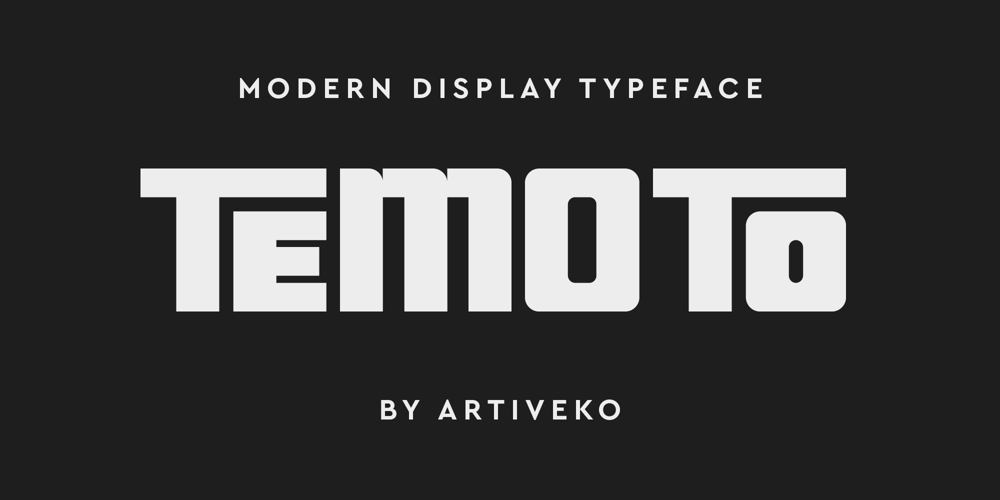
Temoto Font Family was designed by Iwan Alwan and published by Artiveko. Temoto contains 2 styles and family package options. Temoto, a formidable creation by Iwan Alwan.This strong sans-serif font embodies robustness and clarity, perfectly suited for industries like construction, security, business, consulting, and real estate. With its bold strokes and clean lines, Temoto exudes professionalism and confidence, making it an ideal choice for conveying strength and reliability in various design projects.Whether it’s building brand identities, crafting sleek signage, or designing impactful marketing materials, Temoto stands tall as a versatile typeface that commands attention and communicates authority.